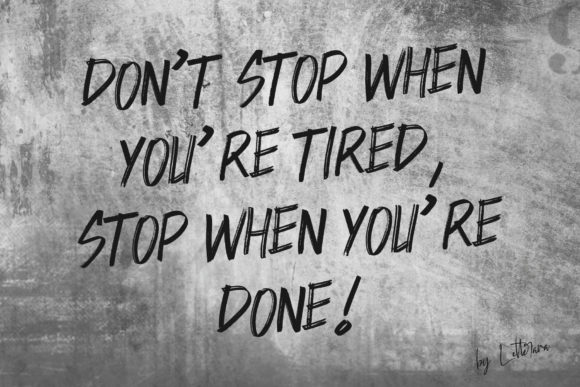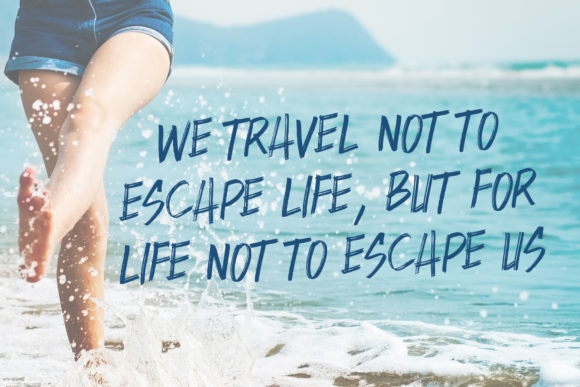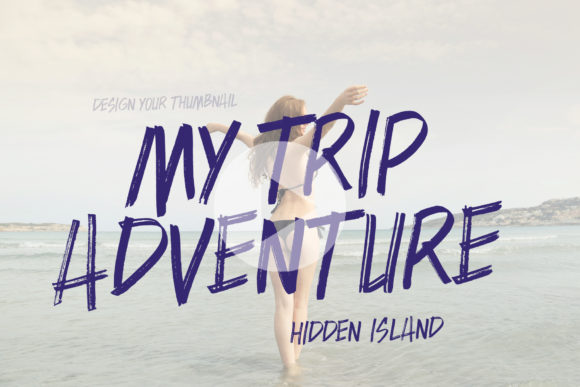
Introduction to Black Area Font
Black Area is a strong brush font with a unique style.
Get inspired by its authentic vibe .
Black Area Font offers exceptional quality and versatility, making it a valuable addition to your design toolkit. Whether you’re creating for personal projects or commercial use, Black Area Font delivers professional results.